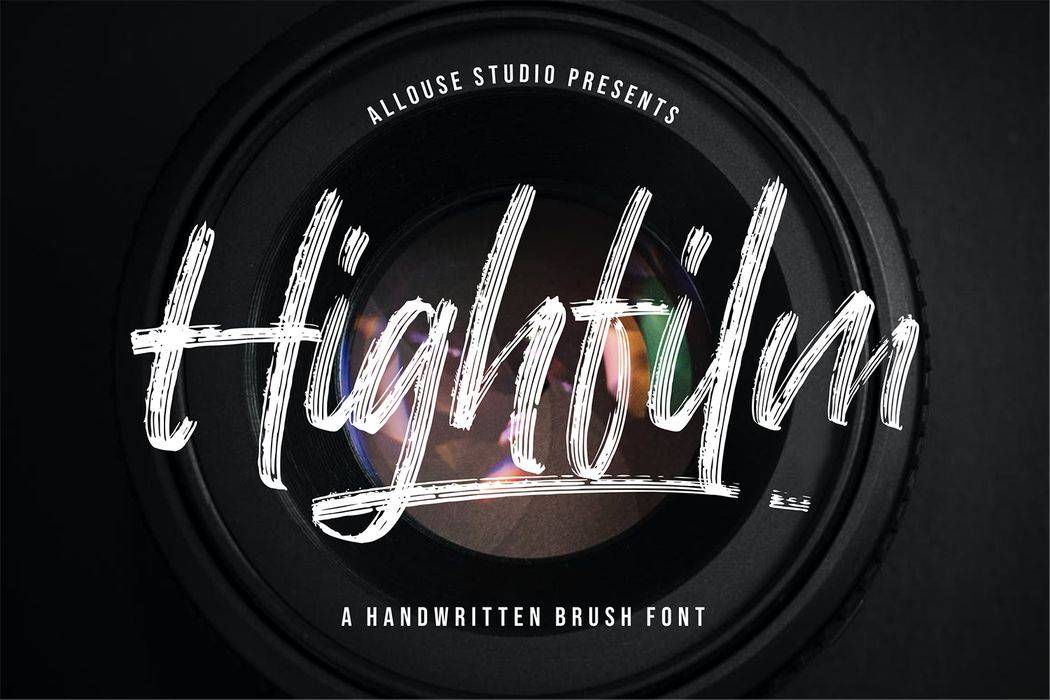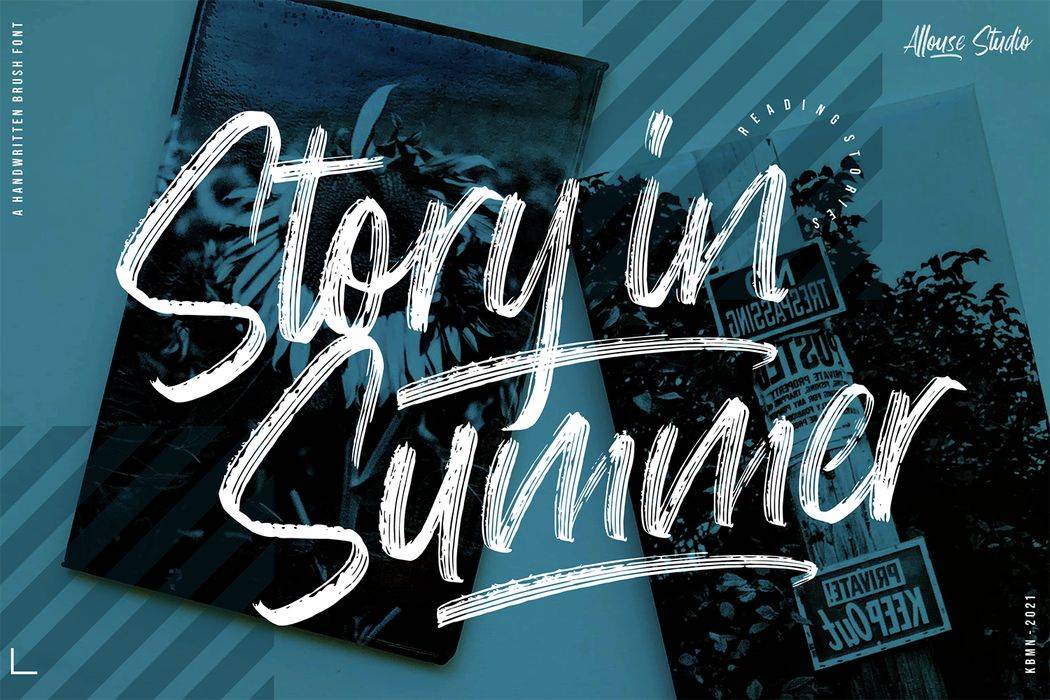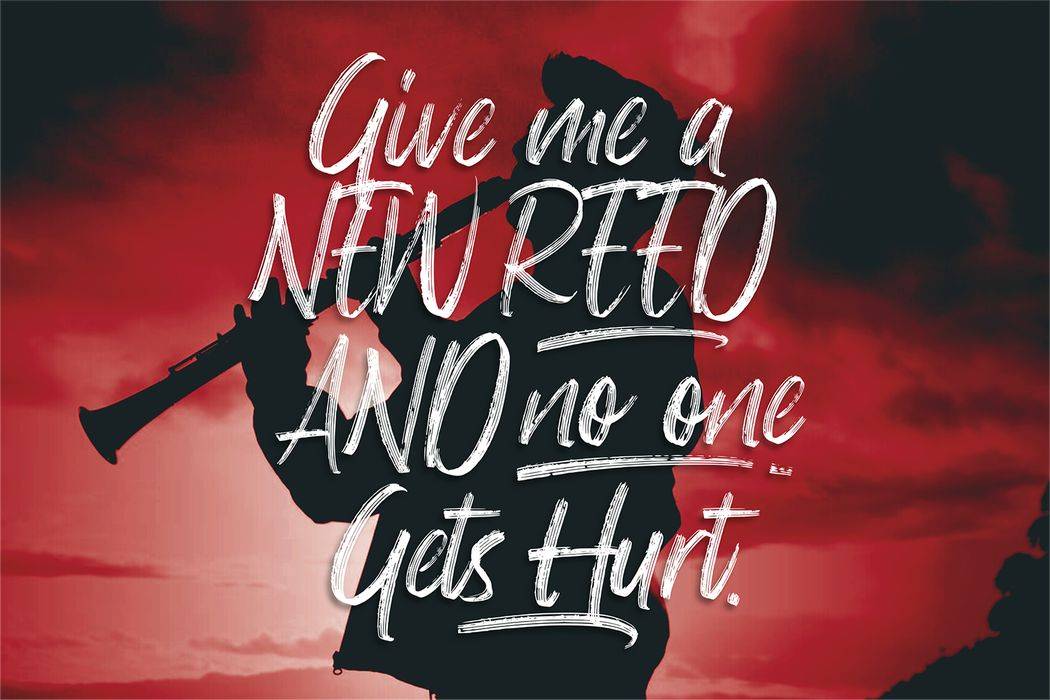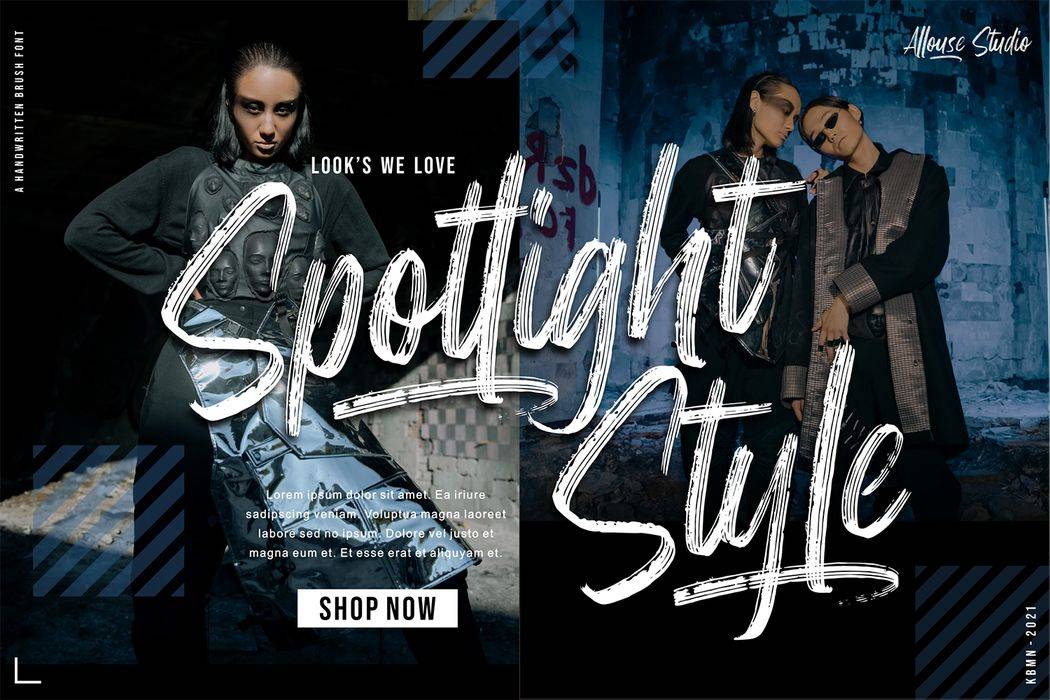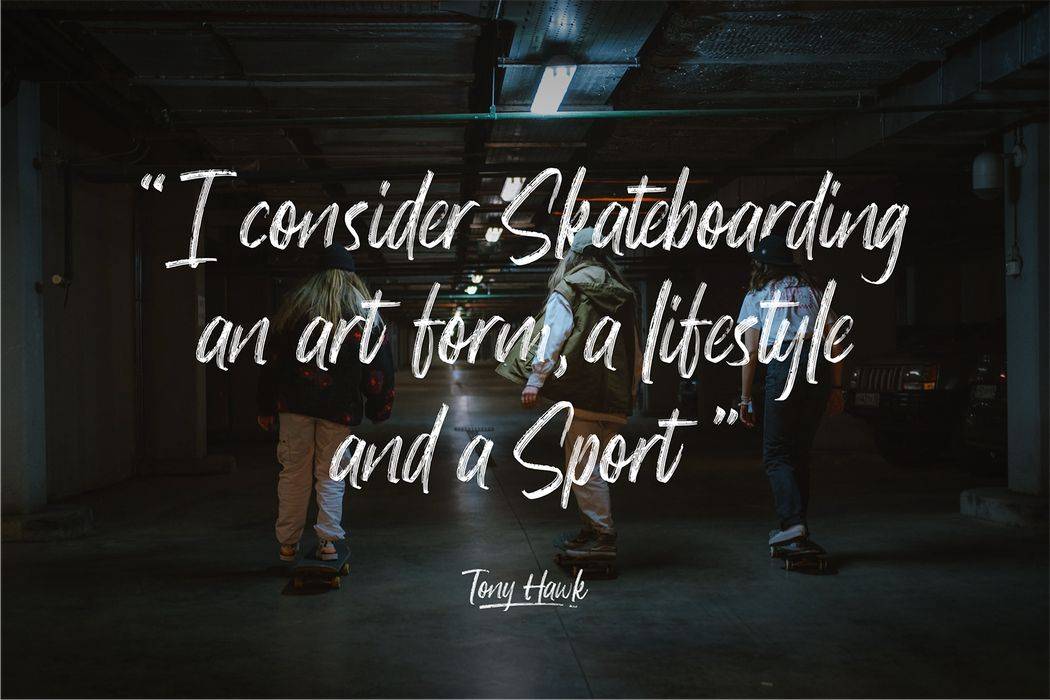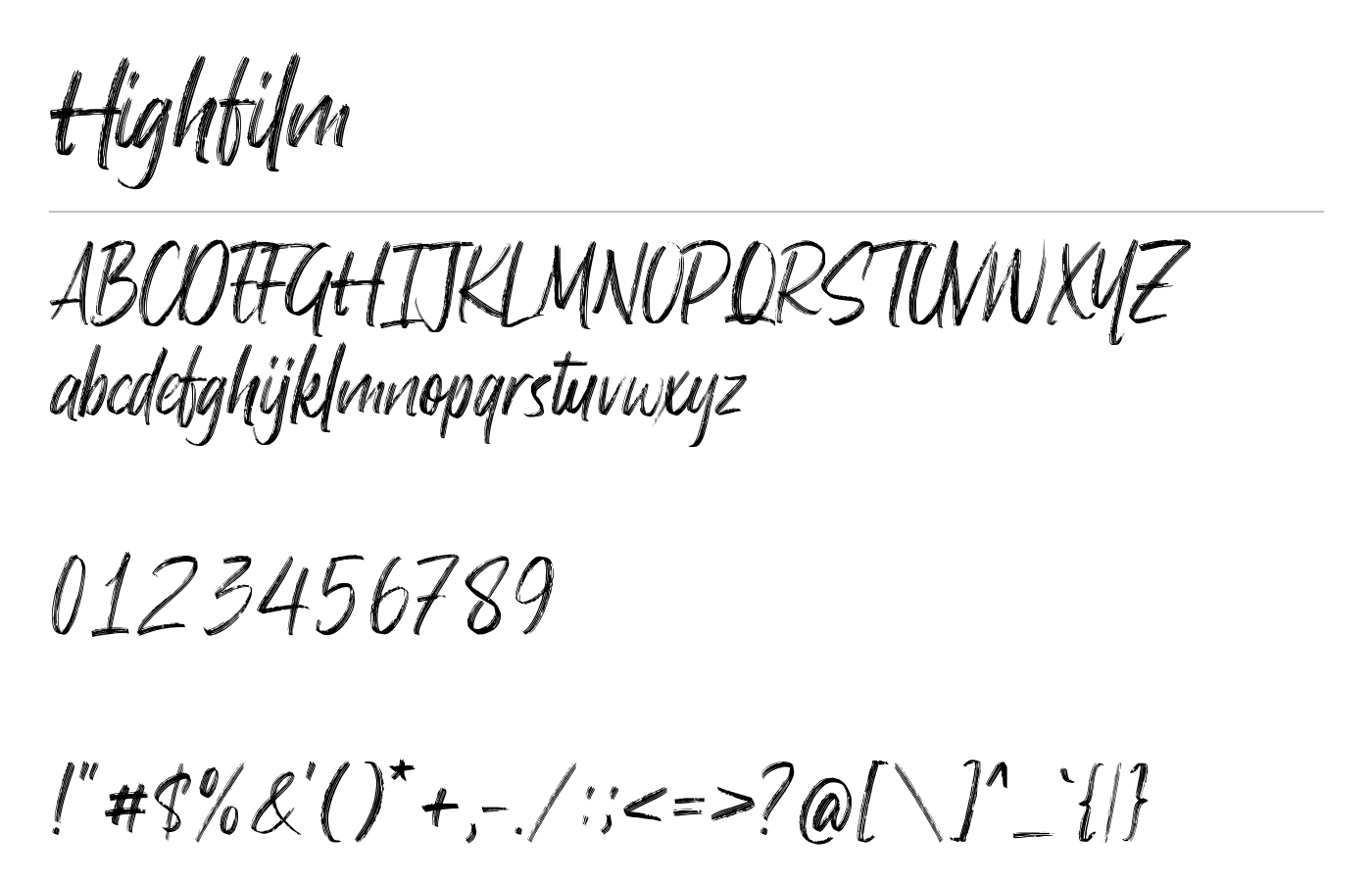
Highfilm is a lively, hand-drawn script font with a textured, brushstroke style that gives it a casual and artistic feel. Its tall, narrow letterforms combined with irregular, sketchy lines create a dynamic and expressive personality, making it ideal for creative projects, informal branding, and designs that seek a personal, handmade touch. This font works well for logos, posters, and social media graphics where a bold, energetic, and approachable vibe is desired.
Highfilm Font
About Highfilm Font
| Font family | Highfilm Font |
| Designer | Allouse Studio |